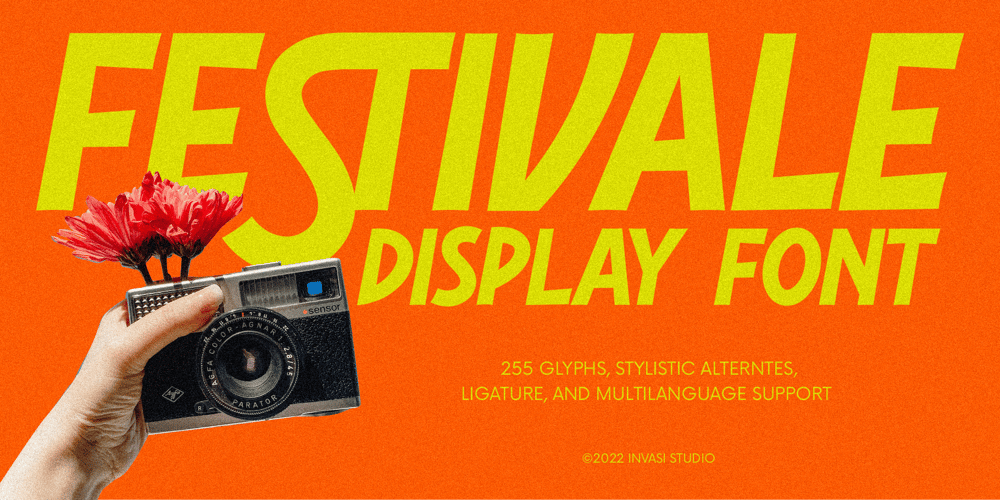
Festivale Font Family was designed by Gha Arizal and published by Invasi Studio. Festivale contains 1 styles and family package options. Festivale is a retro vibes display font. With italic and bold strokes, more fun characters with swashes in alternate features. To give you extra creative to your project.This font is perfect for your display project for headlines, quotes, editorial design, print posters, and much more.